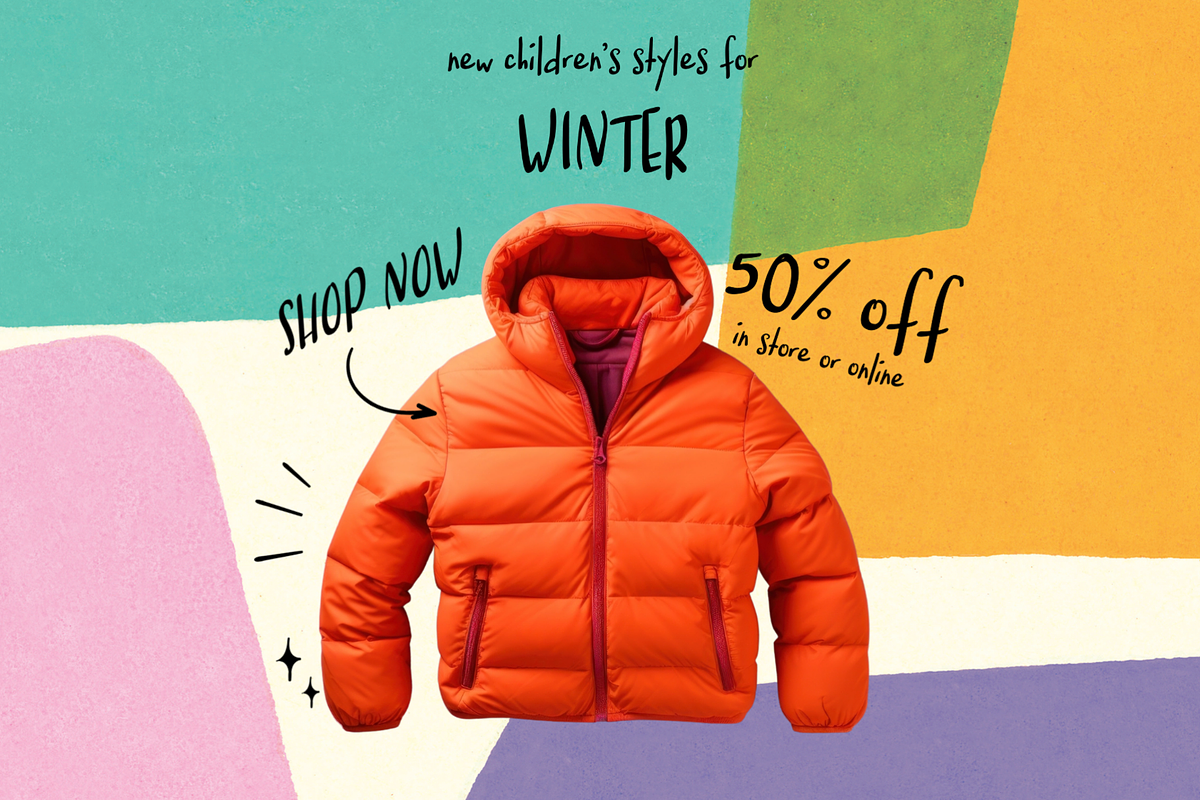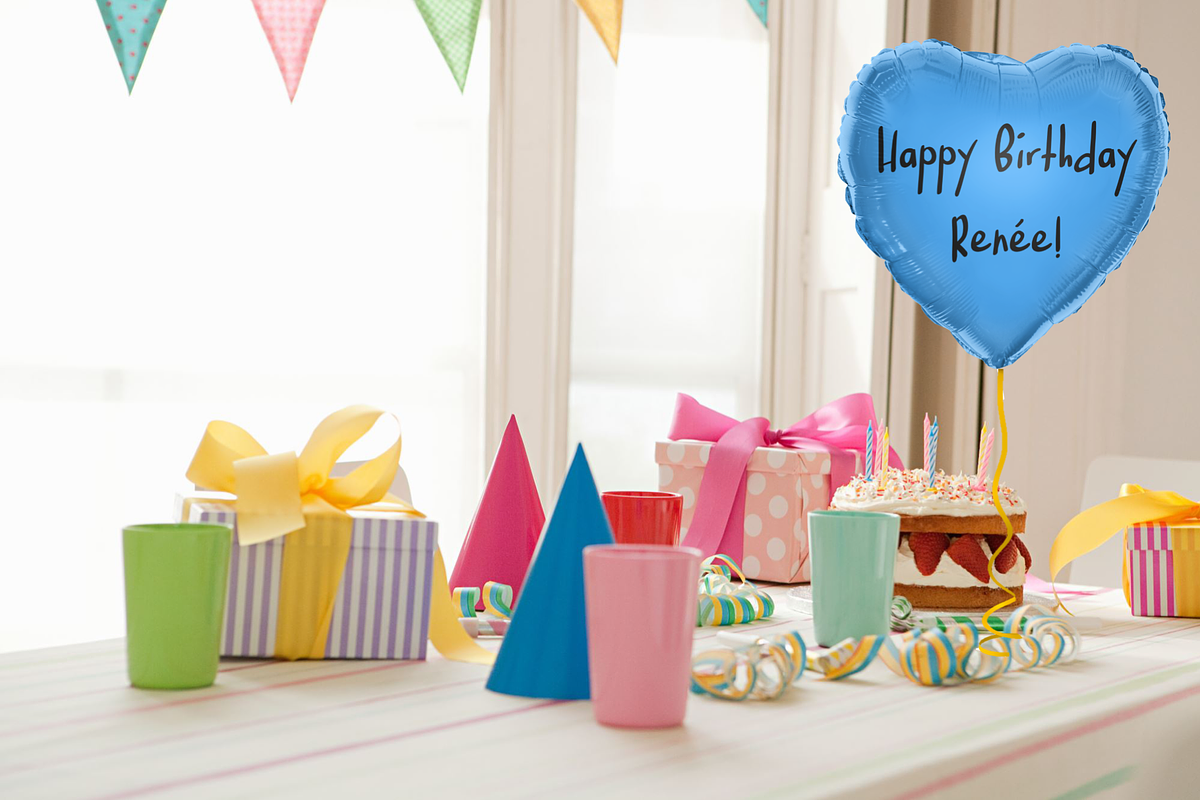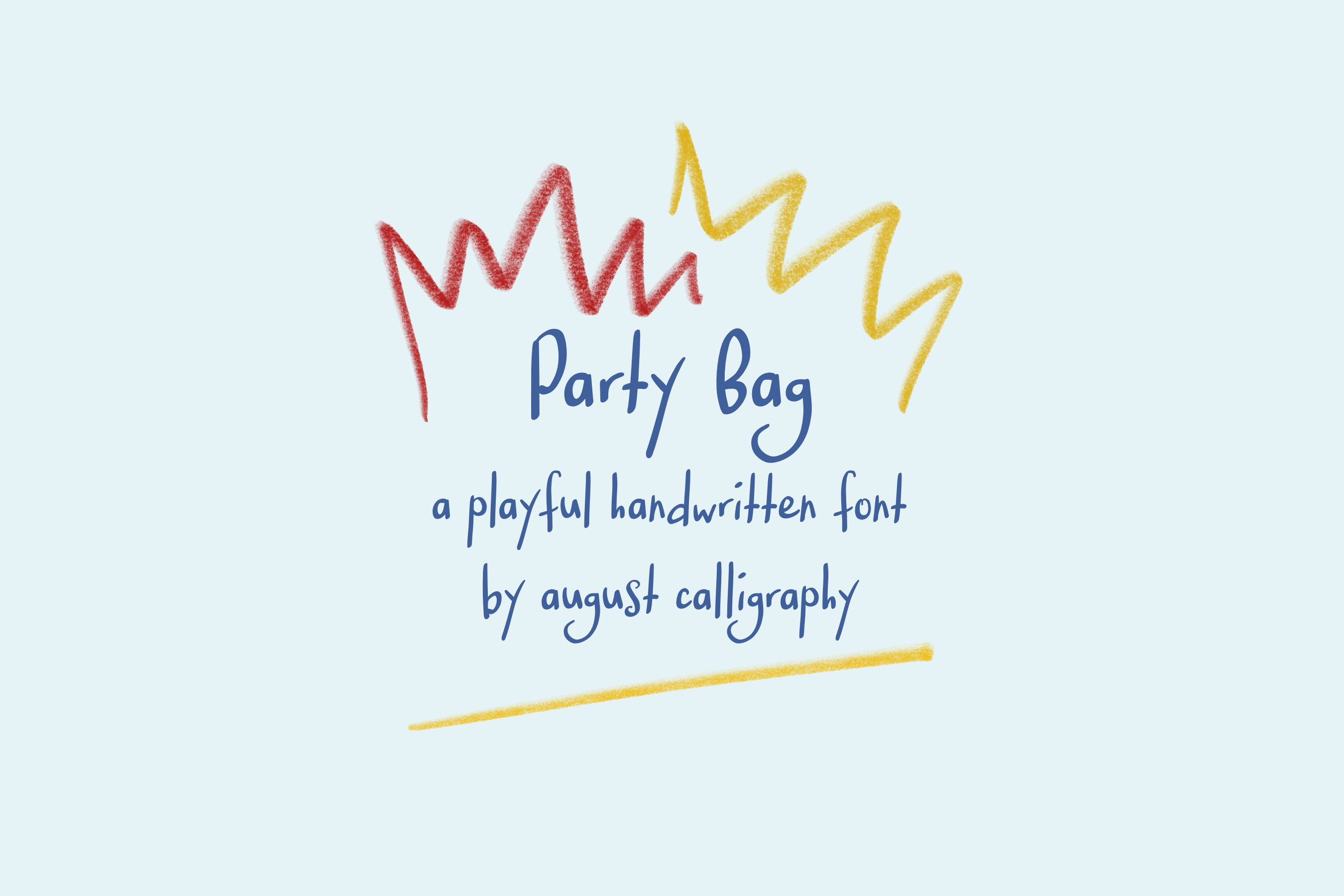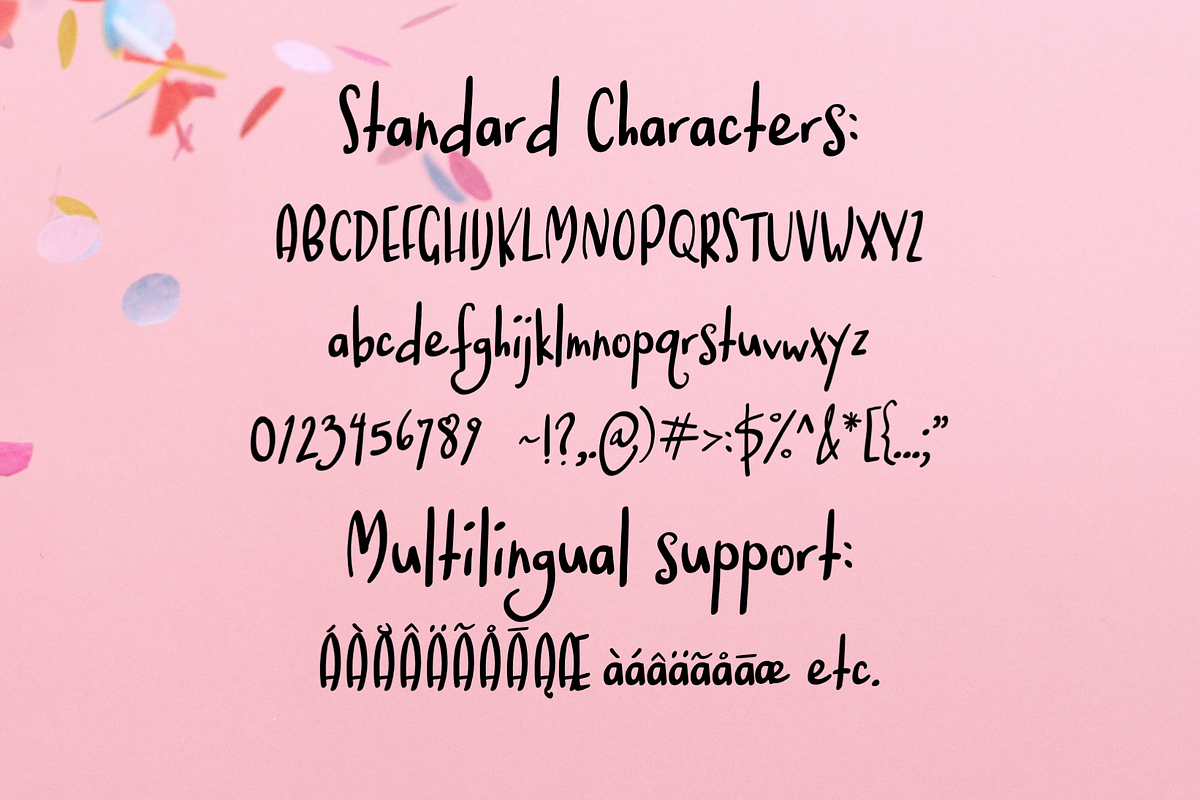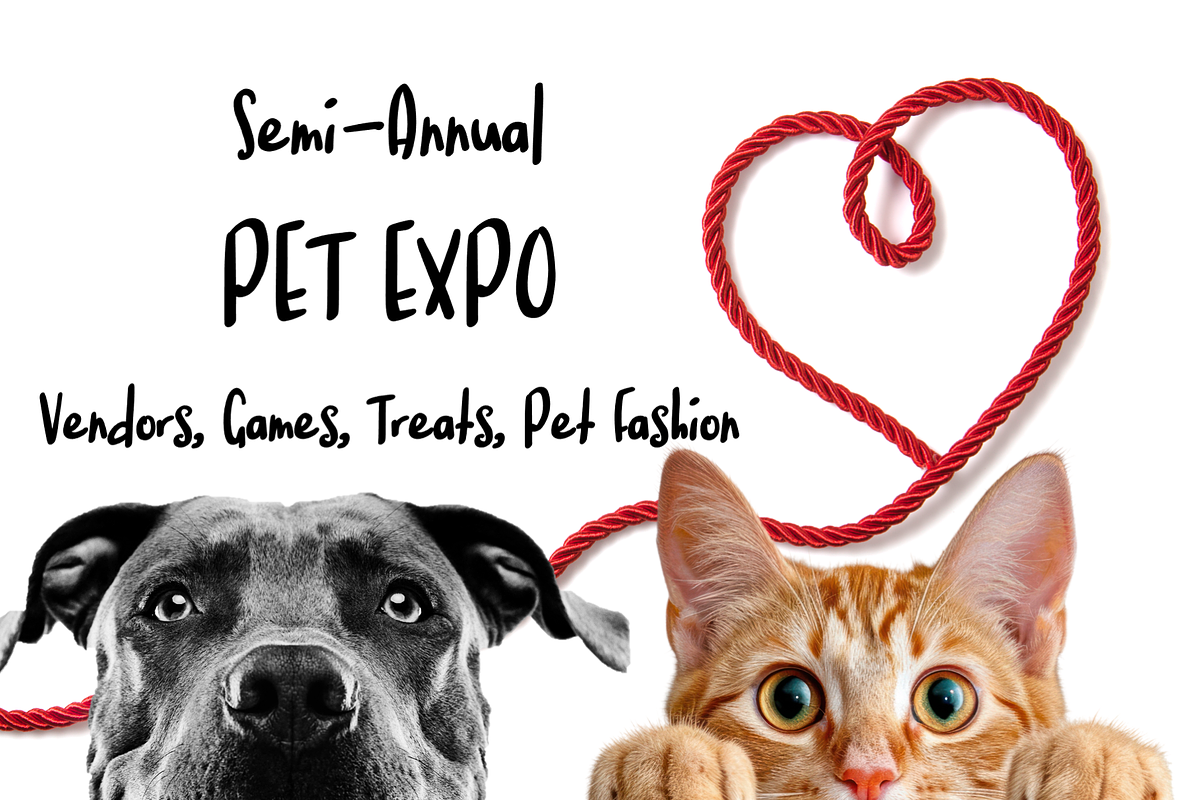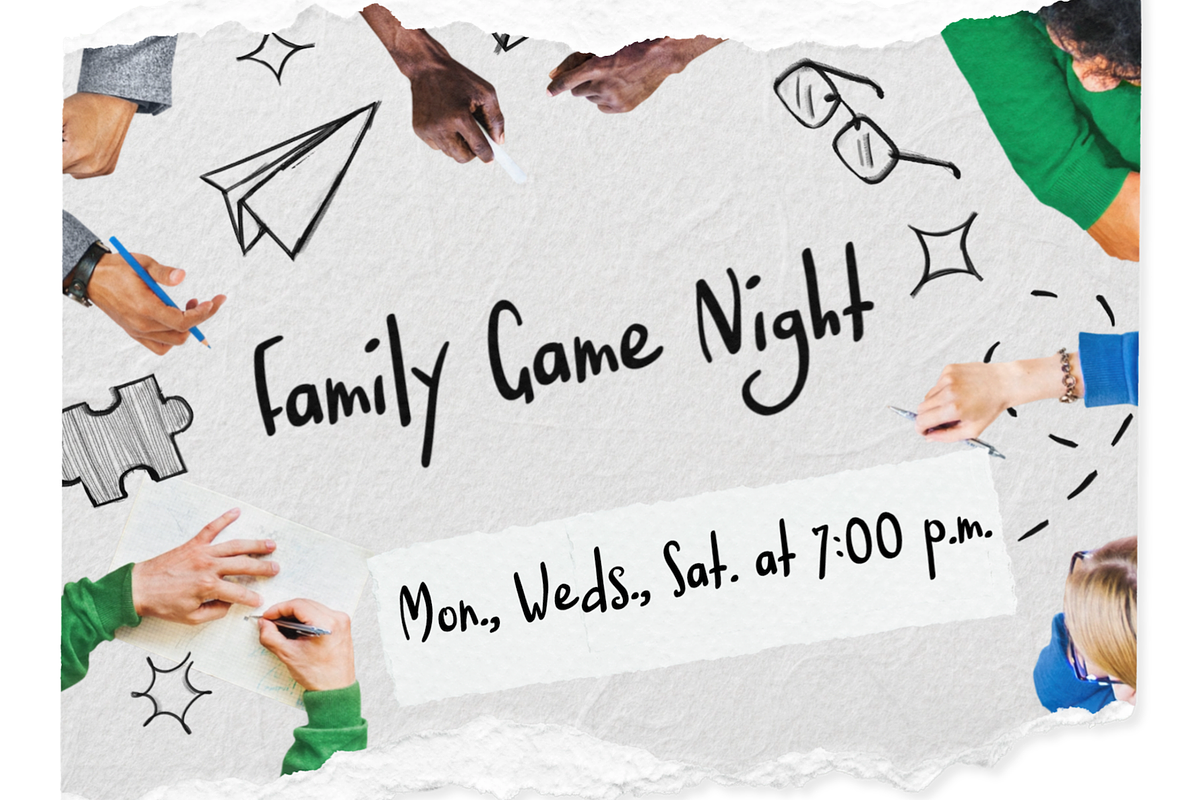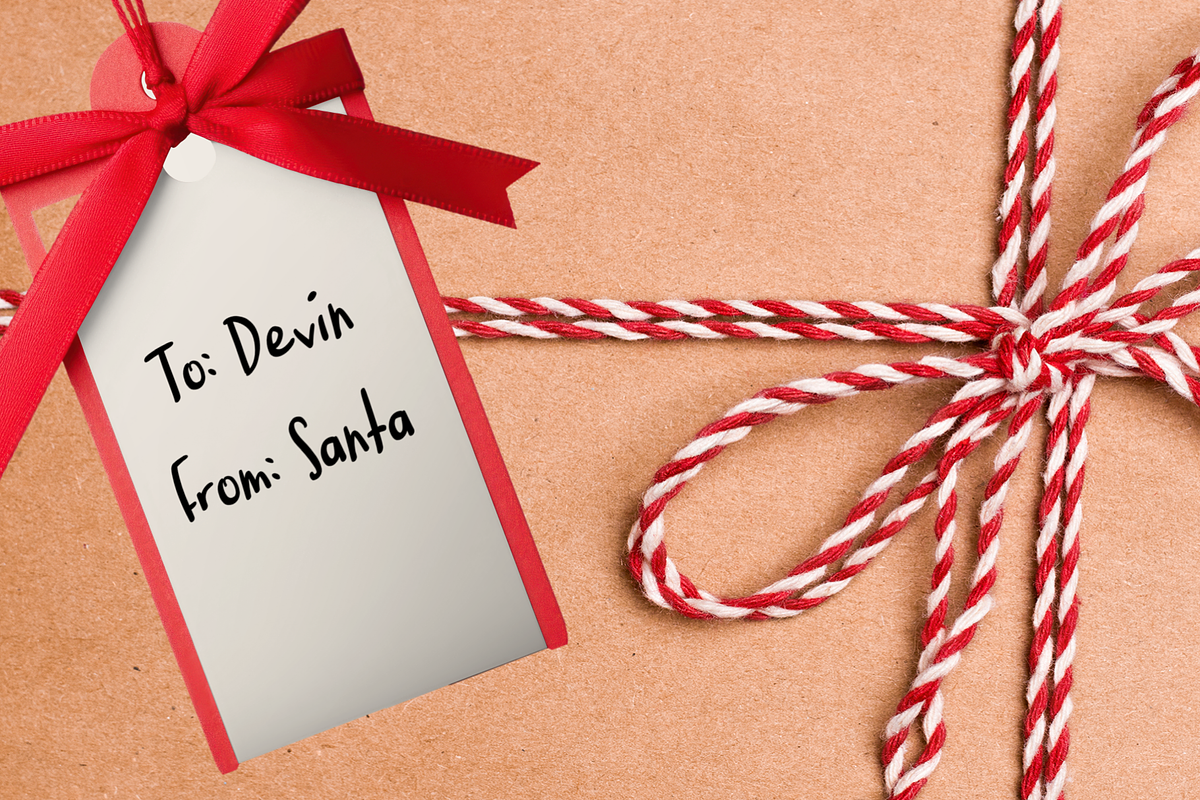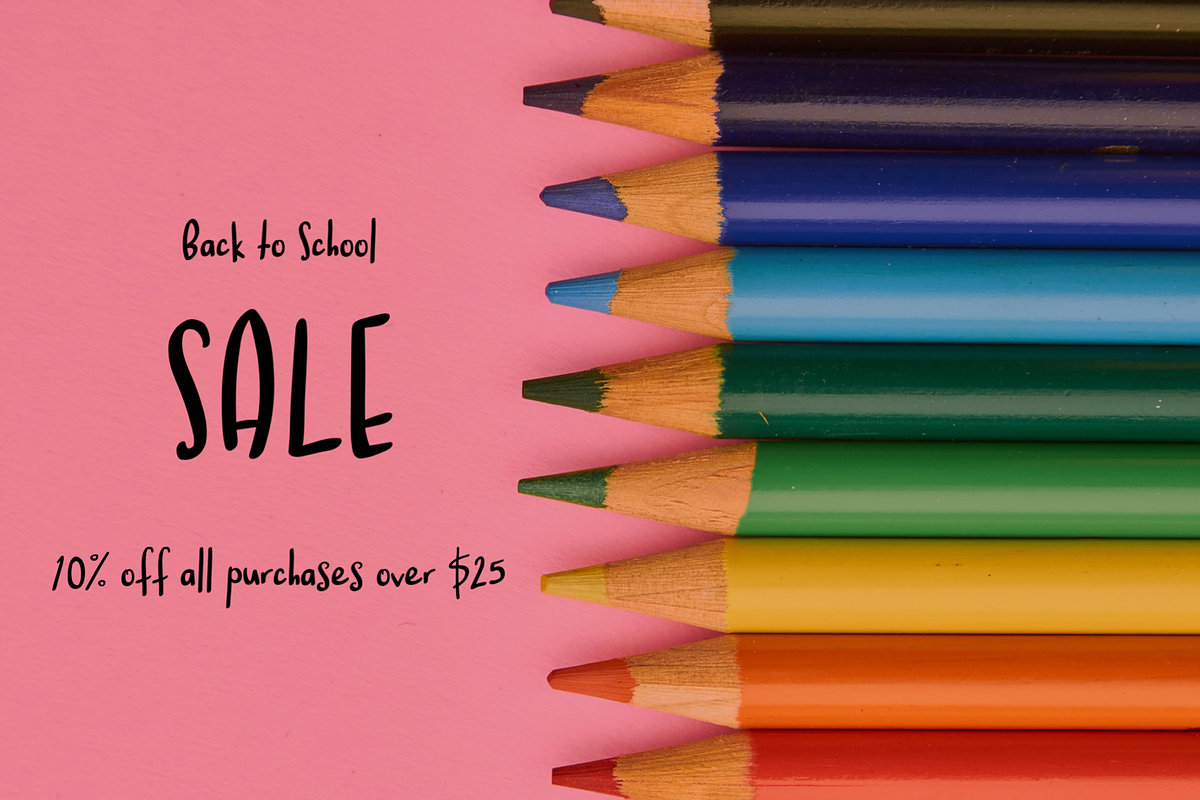
Party Bag Playful Handwriting Font
PARTY BAG is a handwritten font that mimics the look of casual print handwriting. This font’s informal look makes it perfect for anything playful! Use it for social media quotes, party invitations, logos and branding, classroom files, teacher gifts, and all things kid-related.
This font includes:
- Uppercase and lowercase letters
- Numbers, punctuation, and symbols
- Multilingual support of Western European, Central European, South Eastern European, and South American languages.